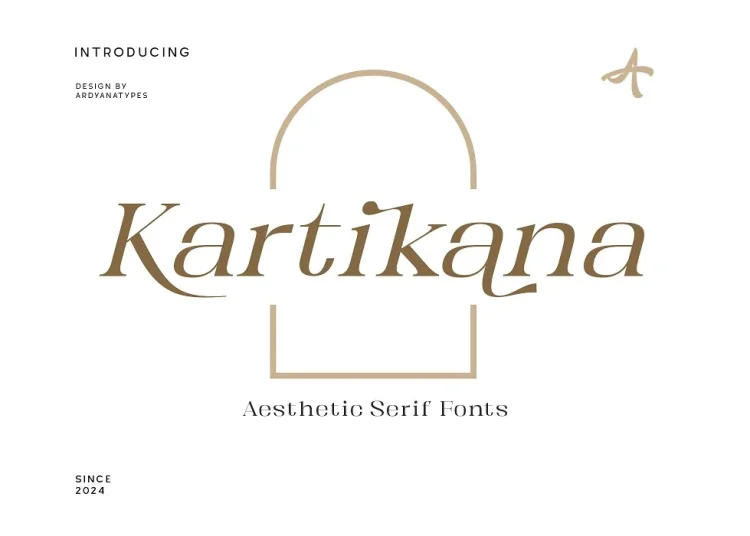
Kartikana Font
Kartikana is a distinctive serif font that exudes a touch of 80s nostalgia while incorporating the latest trends in modern typography. Its elegant and stylish design is perfect for a range of creative projects, whether you’re working on book covers, magazine layouts, advertisements, product packaging, or movie titles.
Kartikana stands out with its OpenType features, offering a variety of styles and options that allow you to craft unique and personalized designs. The font’s versatility ensures that it can adapt to a wide range of applications, making it an excellent choice for both traditional and contemporary projects.
From adding a sophisticated flair to your book covers to creating eye-catching advertisements and memorable product designs, Kartikana is designed to enhance your work with its timeless elegance and modern charm.